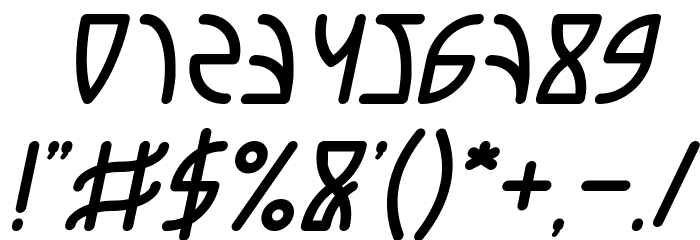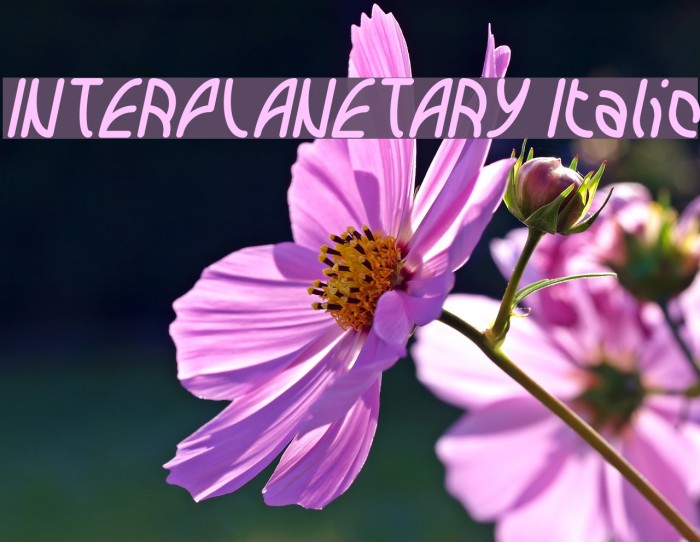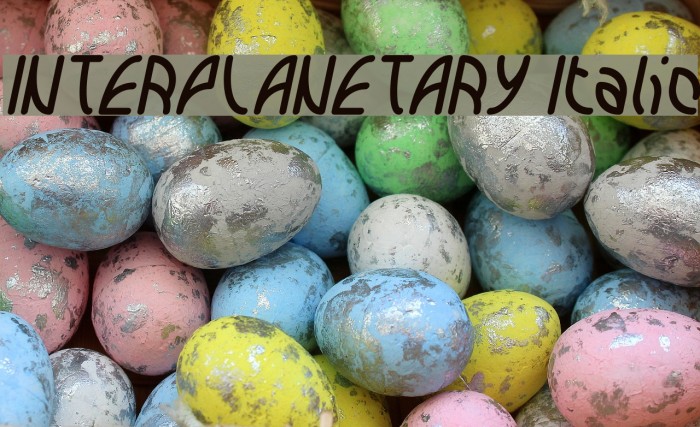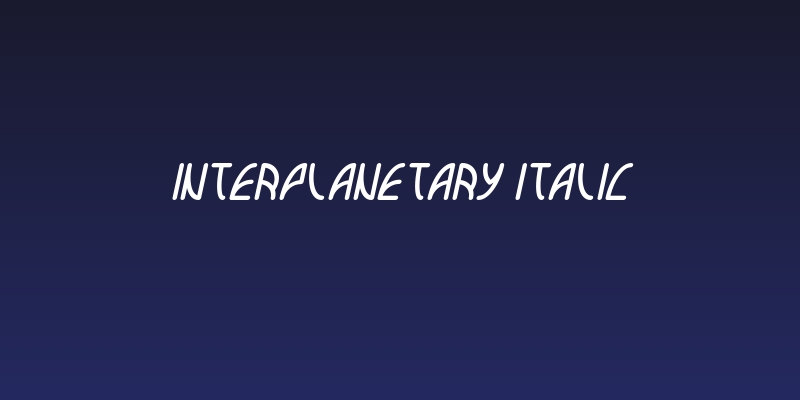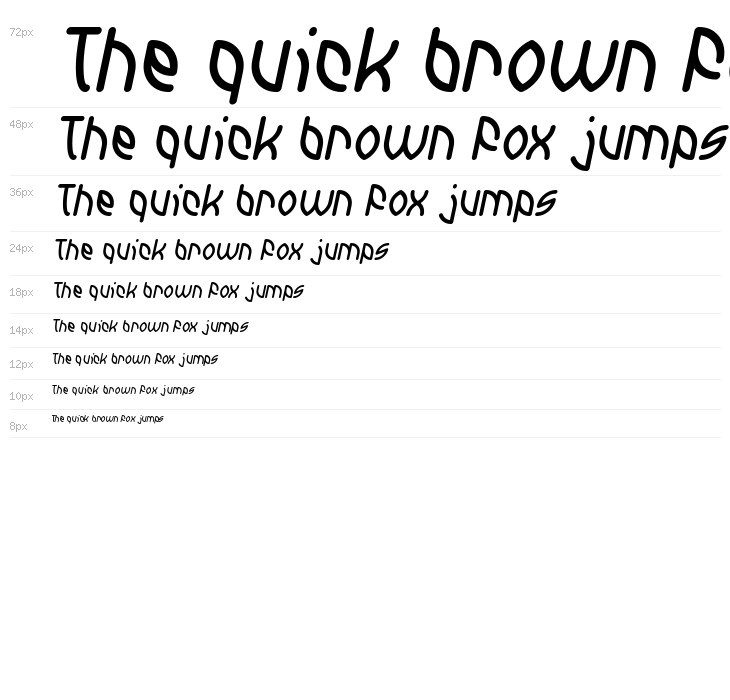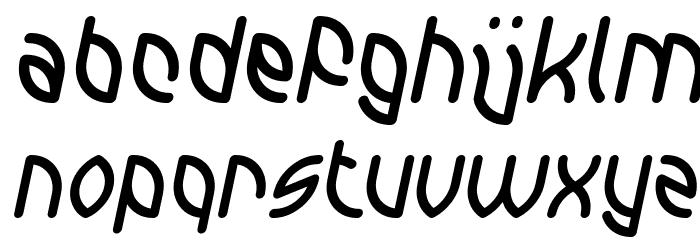
INTERPLANETARY Italic Font
INTERPLANETARY Italic Description
This font features a futuristic and playful design, characterized by its rounded and slightly italicized letterforms. The uppercase letters have a unique, almost alien-like appearance with curved lines and open counters, giving them a distinctive and modern look. The lowercase letters maintain a consistent style, with smooth curves and a slightly condensed form. Numbers and special characters are designed to match the overall aesthetic, ensuring a cohesive appearance across all text. The font's style is both eye-catching and readable, making it suitable for various creative applications.
| Proposed Projects | Ideal for sci-fi themed projects, video game titles, posters, and branding that requires a modern and unique touch. |